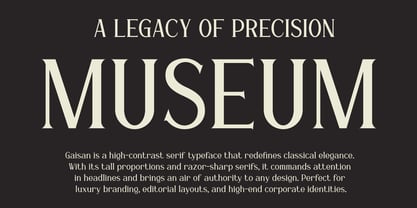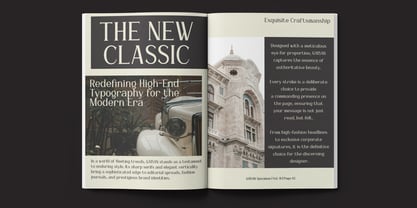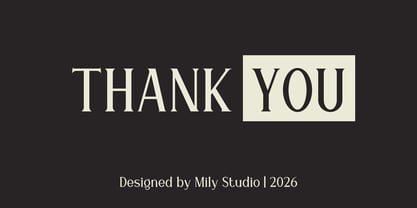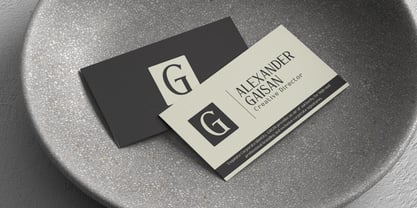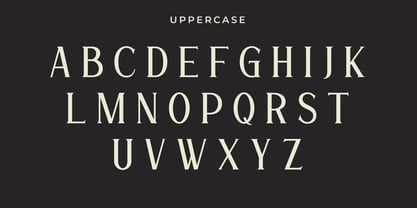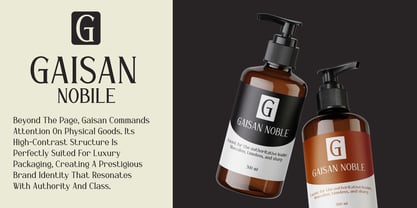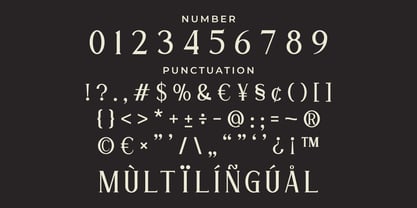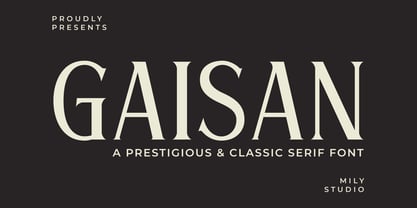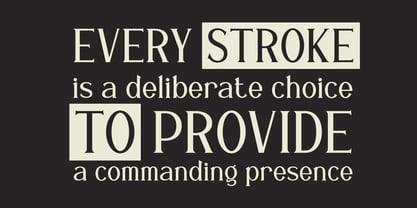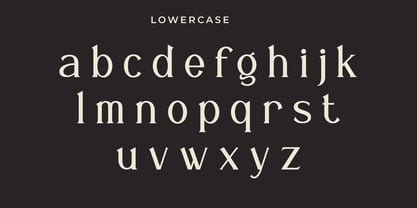
Gaisan
by Mily Studio
GAISAN is a high-contrast serif typeface designed to embody a commanding presence and absolute precision. Defined by its razor-sharp serifs and slender verticality, GAISAN transcends traditional elegance, offering a bold, contemporary take on classical typography. Design Spirit Built on the principle of deliberate choice, every stroke of GAISAN is calculated to provide a sharp, prestigious aesthetic that resonates with power and class. It is the perfect typographic solution for designers seeking to elevate a brand's identity from ordinary to extraordinary. Why Choose GAISAN? Commanding Headlines: Its sharp, condensed structure makes it a powerhouse for large-scale displays and impactful headlines. Luxury Versatility: While it shines in luxury packaging—particularly in the beauty and fragrance industries—its legibility remains flawless for corporate stationery and high-end editorial work. Complete Professional Package: Features a comprehensive set of uppercase, lowercase, numbers, and punctuation, ensuring a seamless design workflow. Global Language Support: Equipped with extensive multilingual characters to support international branding projects. Ideal Use Cases: High-End Product Packaging Elite Corporate Branding Luxury Fashion & Jewelry Labels Premium Magazine Titles & Book Covers